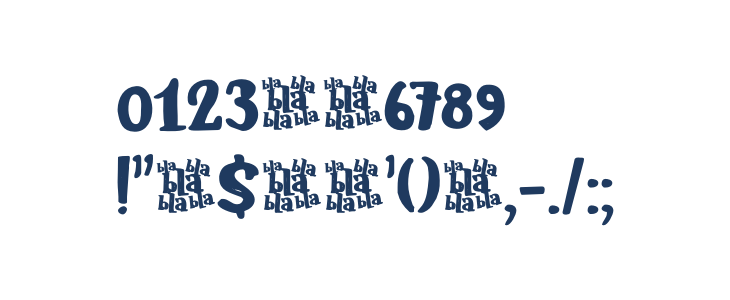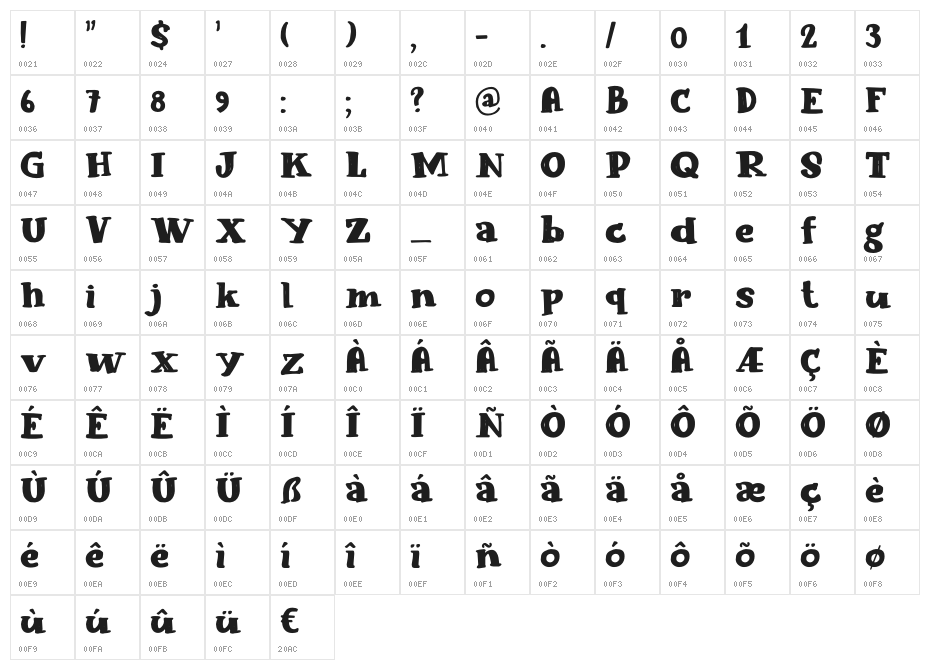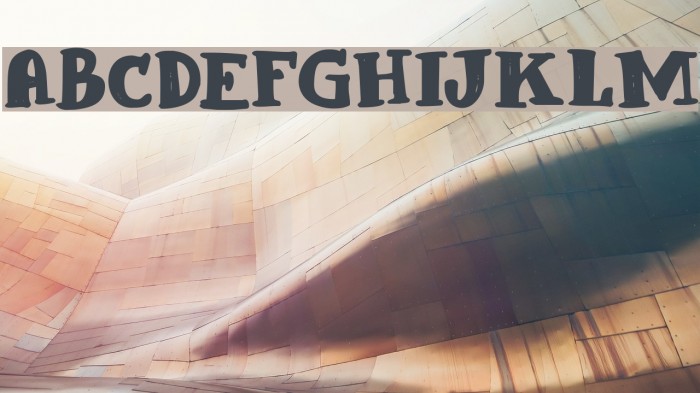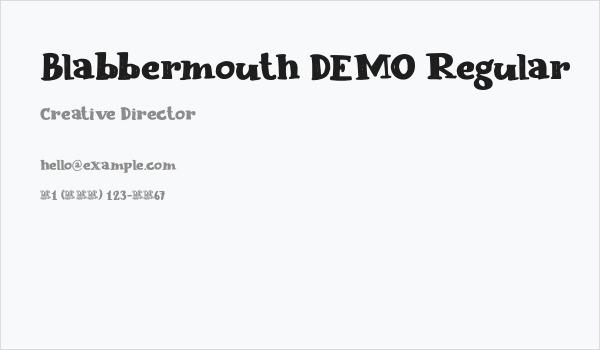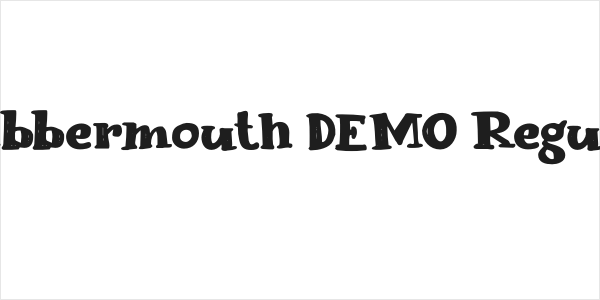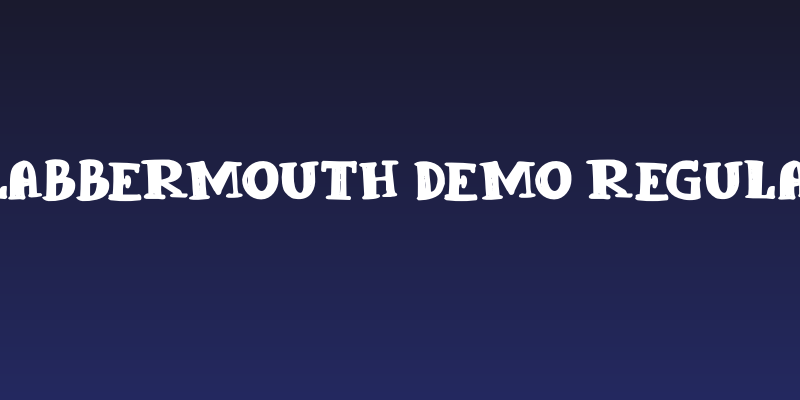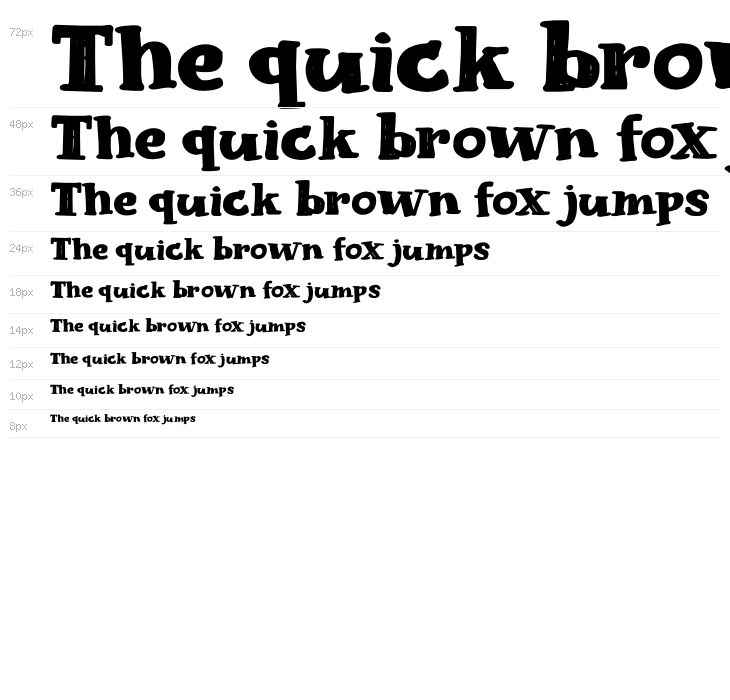
Blabbermouth DEMO Regular Font
Blabbermouth DEMO Regular Description
This font features a playful and bold design, characterized by its irregular and whimsical letterforms. The strokes are thick and uneven, giving it a hand-drawn appearance that adds a sense of fun and creativity. The uppercase and lowercase letters maintain a consistent style, with exaggerated curves and varying stroke widths that create a dynamic and lively look. The numbers and special characters follow the same playful aesthetic, making this font suitable for projects that require a touch of humor and personality. Its unique style makes it stand out, perfect for eye-catching designs.
| Overall Style | Playful, Creative |
| Proposed Projects | Ideal for children's books, comic strips, playful branding, and creative posters. |